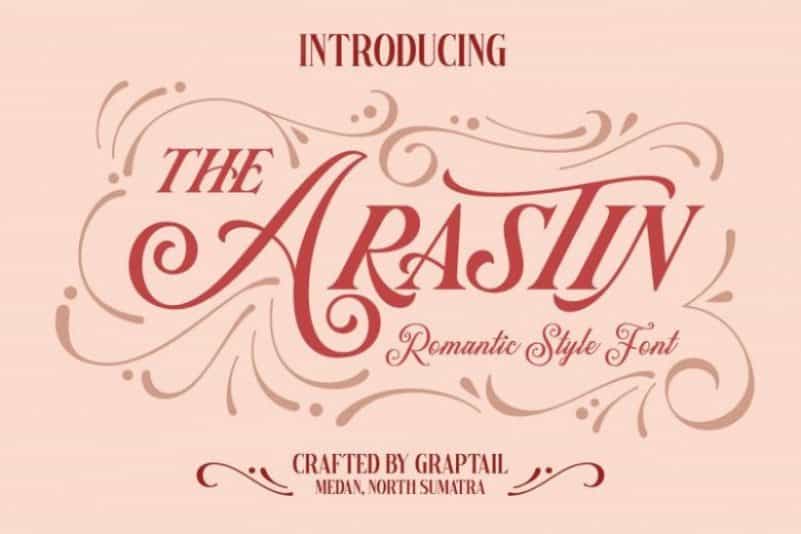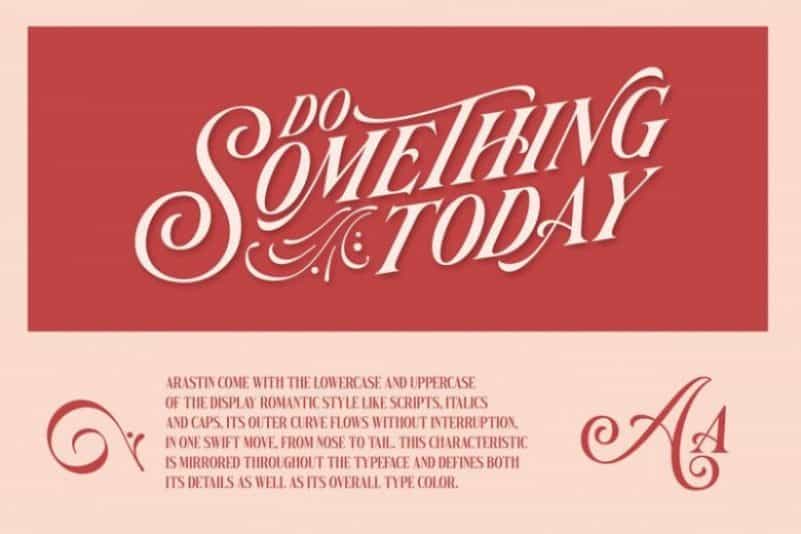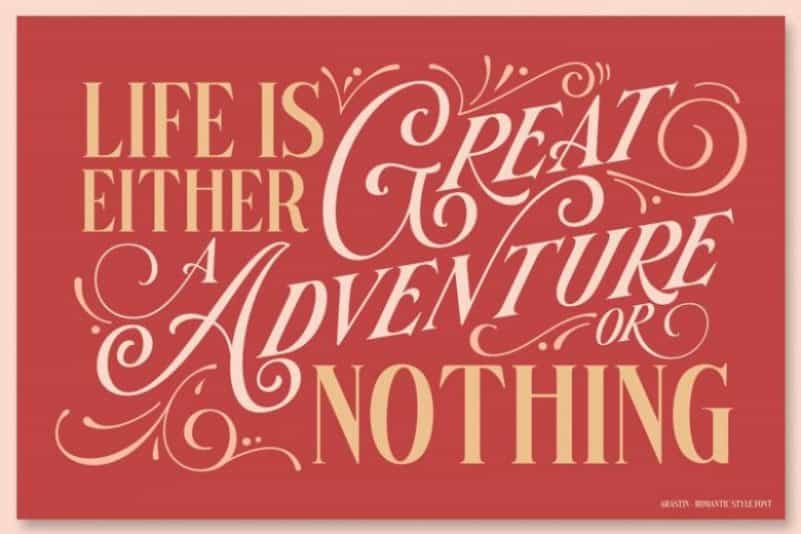
Arastin is a beautiful font that will assist you to add a romantic soul to your project. This format can be used in any of your creations, and it is a classic format. This font is perfect for creating invitation cards or posters, get your copy now to start designing!